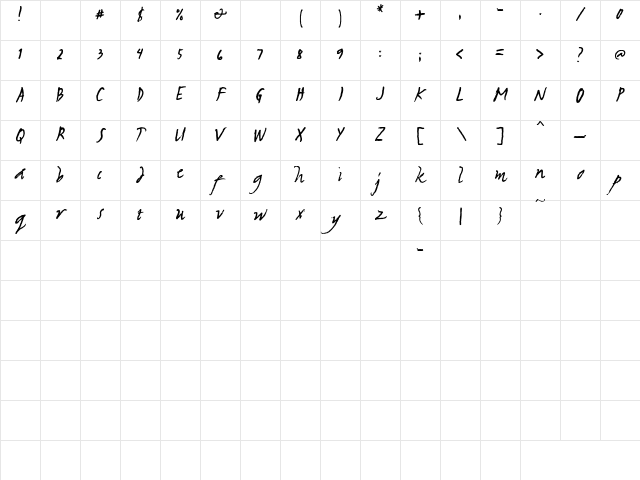
Complete Sulatko glyph index. Displaying only characters natively supported by Sulatko font.
Sulatko is a composed and adaptable typeface that performs quietly and consistently across a wide range of design contexts.